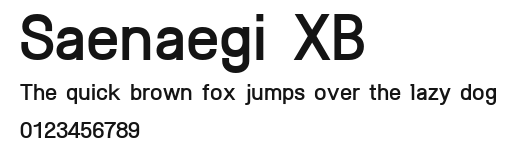
Saenaegi XB.ttf is a modern, elegant sans-serif font designed for ultimate readability and visual harmony. Perfect for branding, headlines, web design, and print materials.